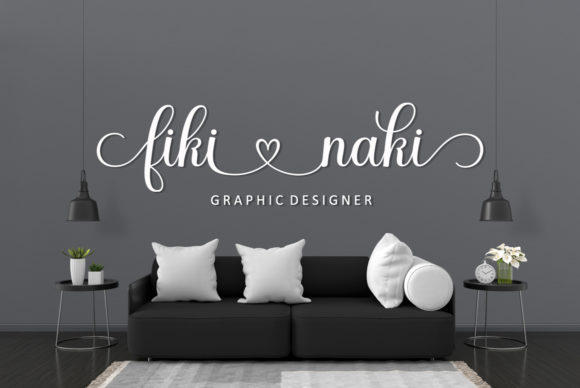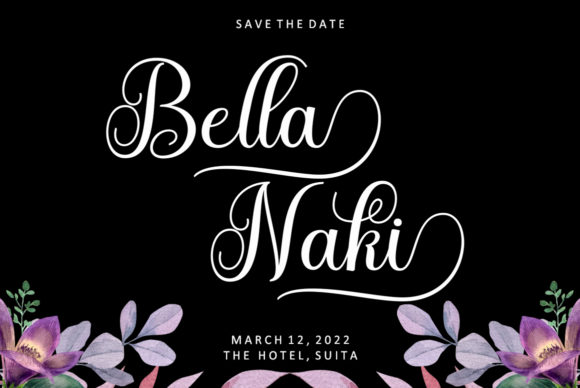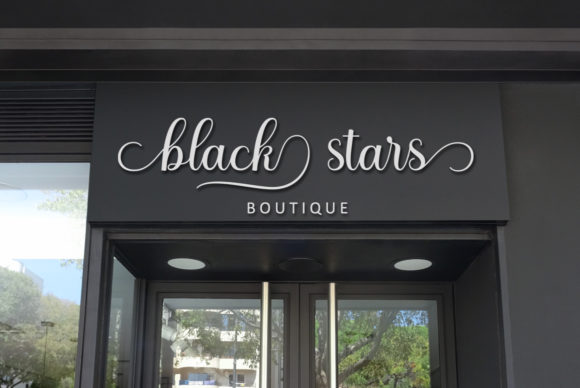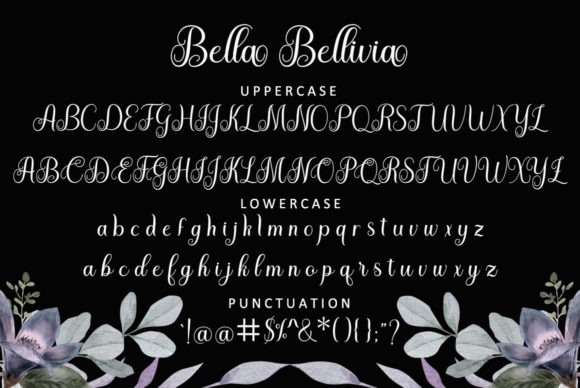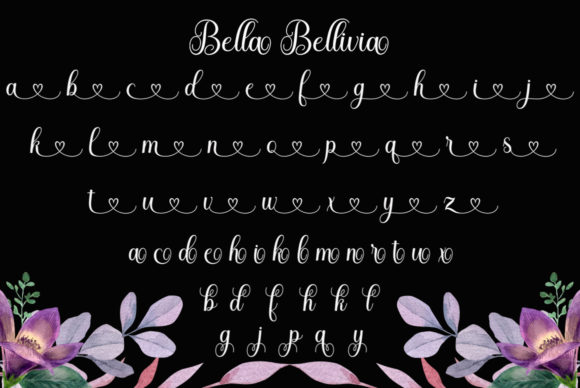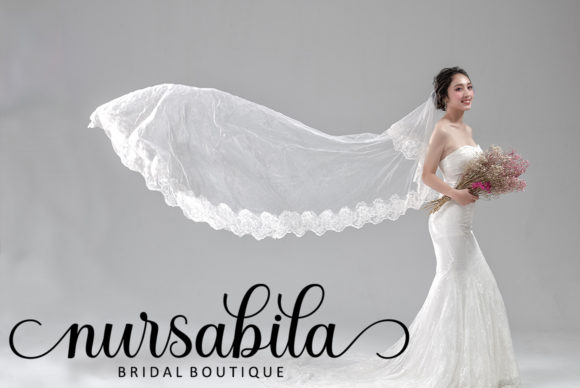
The Magic of Handwritten Typography: Introducing Bella Bellivia Font
Have you ever found yourself scribbling down ideas in the middle of the night, the words flowing effortlessly onto the page as your creative juices start to flow? That’s exactly what happens when the right tools are at your disposal, and for designers, the Bella Bellivia Font is one such treasure.
Bella Bellivia Font is a delicate, elegant, and flowing handwritten font that brings any design to life. With its beautiful and well-balanced characters, it’s the perfect addition to a wide range of creative projects. Whether you’re designing a wedding invitation, a children’s book, or a marketing campaign, this font is sure to add a touch of sophistication and charm.
As a PUA-encoded font, Bella Bellivia Font makes it easy to access all of its glyphs and swashes, giving designers the freedom to experiment and push the boundaries of their creativity. With Bella Bellivia Font, the possibilities are endless, and your designs will thank you.
Bella Bellivia Font Key Features
- Unique Characteristics: The Bella Bellivia font features a unique blend of elegance and sophistication, with intricate details and flourishes that set it apart from other script fonts.
- Legibility: Despite its ornate design, the Bella Bellivia font is highly legible, making it suitable for use in a wide range of applications, from body text to headings and titles.
Bella Bellivia Font Review
Overall, I think the Bella Bellivia Font is a lovely addition to any designer’s toolkit. Here are some things that really shine: ✨
- The font’s elegant, feminine aesthetic makes it perfect for branding and marketing materials that need a touch of sophistication.
- The extensive character set and language support make it a great choice for designers who need to work with multiple languages.
- The font’s high-quality rendering and smooth curves give it a polished, professional look that’s sure to impress.
However, there are a few limitations that might make it less suitable for some designers: ⚠️
- The font is quite ornate, which can make it difficult to read at smaller sizes or in certain contexts.
- The weight range is limited, which can make it harder to achieve the perfect balance of legibility and visual interest.
Overall, I think the Bella Bellivia Font is a great choice for designers who need a elegant, sophisticated font for branding and marketing materials. While it may have some limitations, its strengths far outweigh its weaknesses.
To get the most out of Bella Bellivia font, use it for:
- Brand logos and identity design
- Quirky and creative projects
Remember to use the font consistently throughout your design to create a cohesive look.